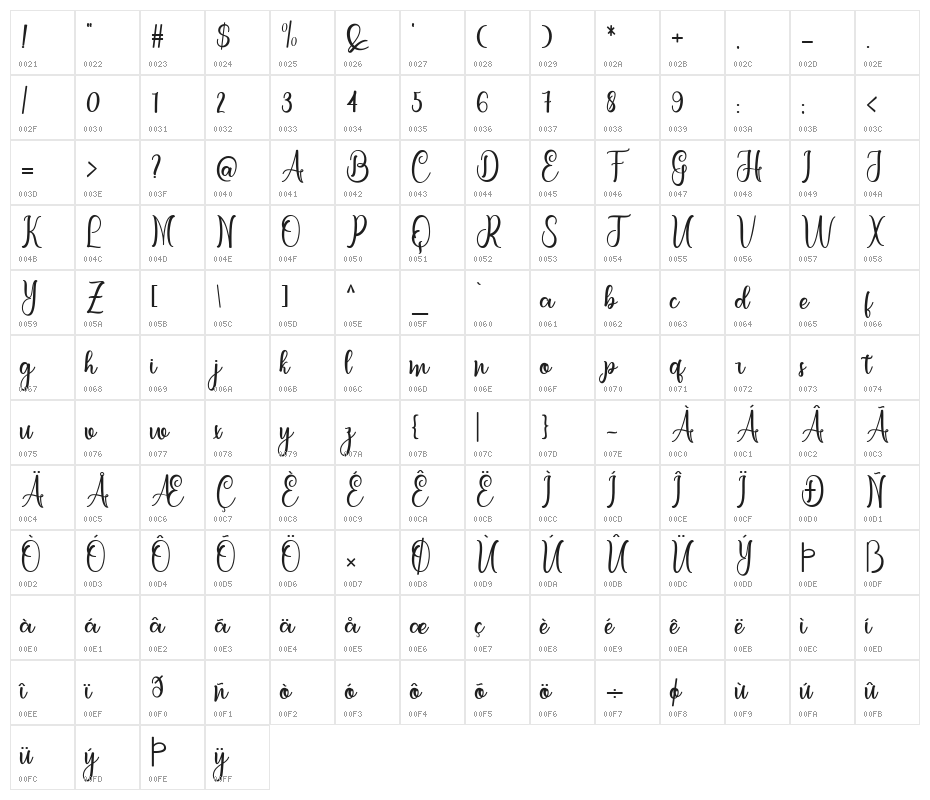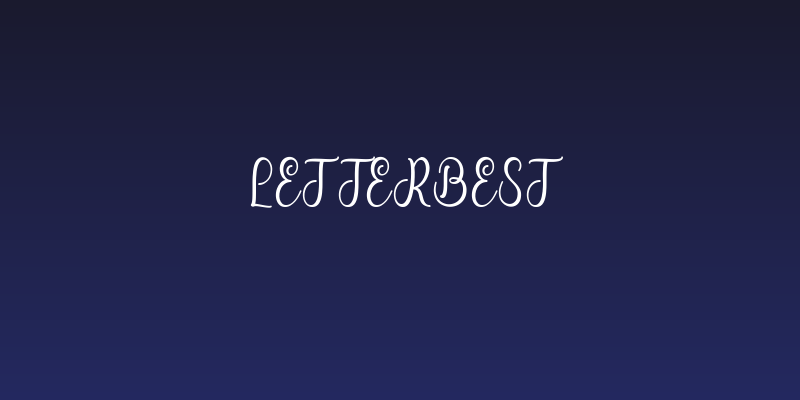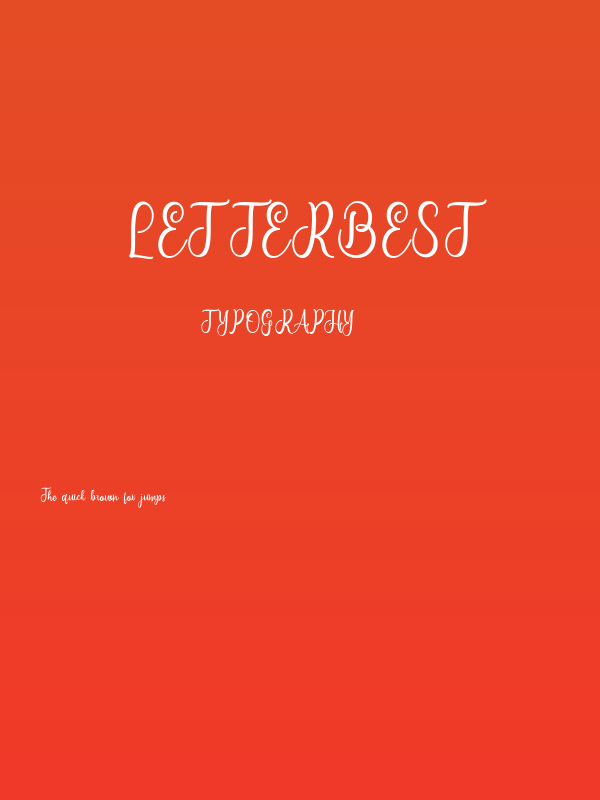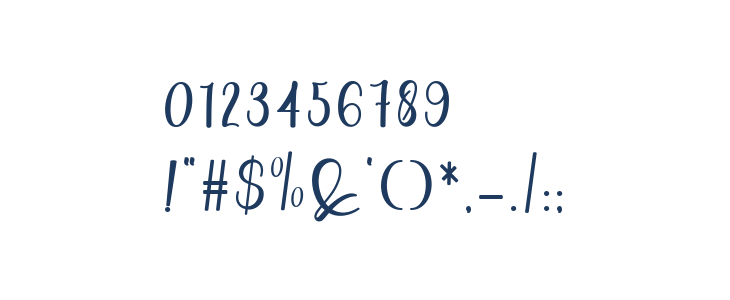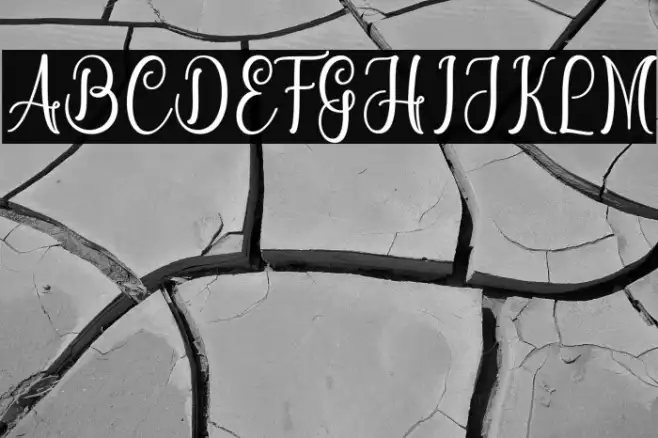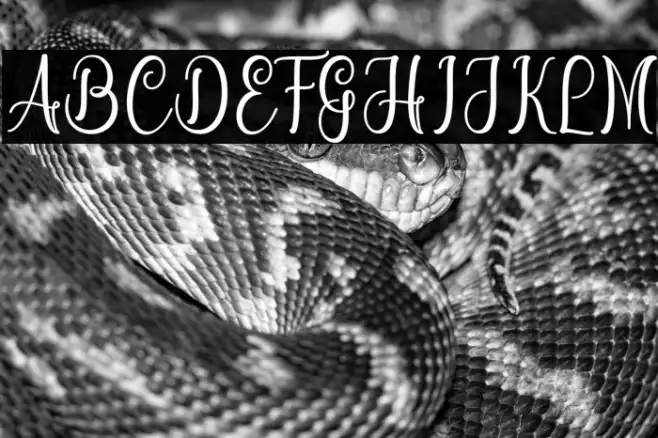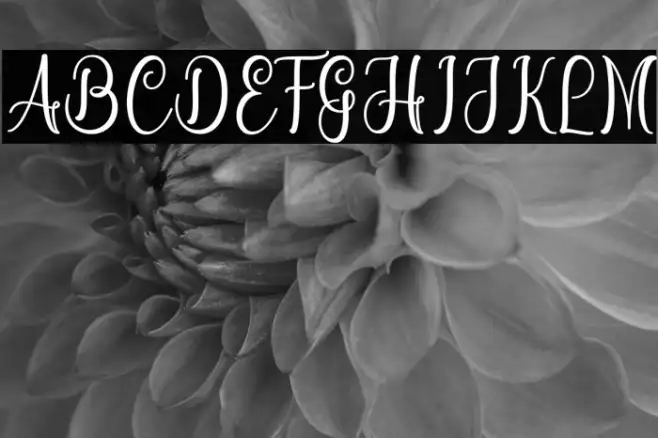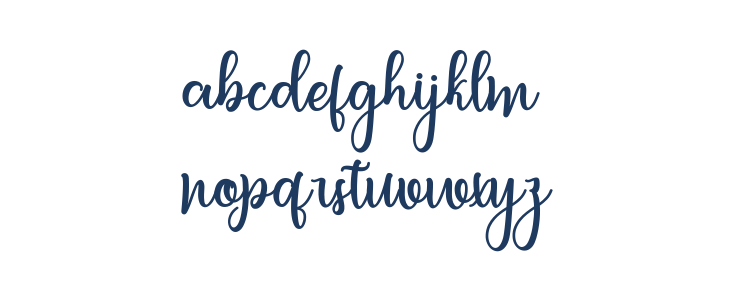
letterbest Font
letterbest Description
This font features a playful and elegant script style, characterized by its flowing, cursive letters that convey a sense of movement and grace. The uppercase letters are tall and slightly narrow, with smooth curves and a consistent stroke width that adds to its legibility. The lowercase letters are more dynamic, with loops and swashes that enhance its decorative appeal. The numbers maintain the same whimsical style, ensuring consistency across all characters. Special characters are creatively designed, fitting seamlessly with the overall aesthetic. This font is ideal for projects that require a touch of sophistication and creativity.